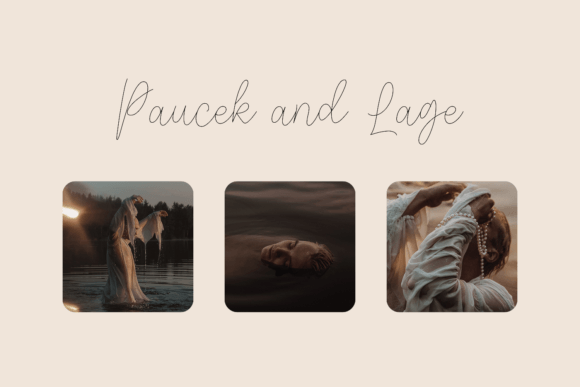
Fidelity Contrasts is a distinct graceful single-line font. Fall for its ravishing style and use it to create gorgeous wedding invitations, beautiful stationary art, eye-catching social media posts, and much more!
Fidelity Contrasts Font